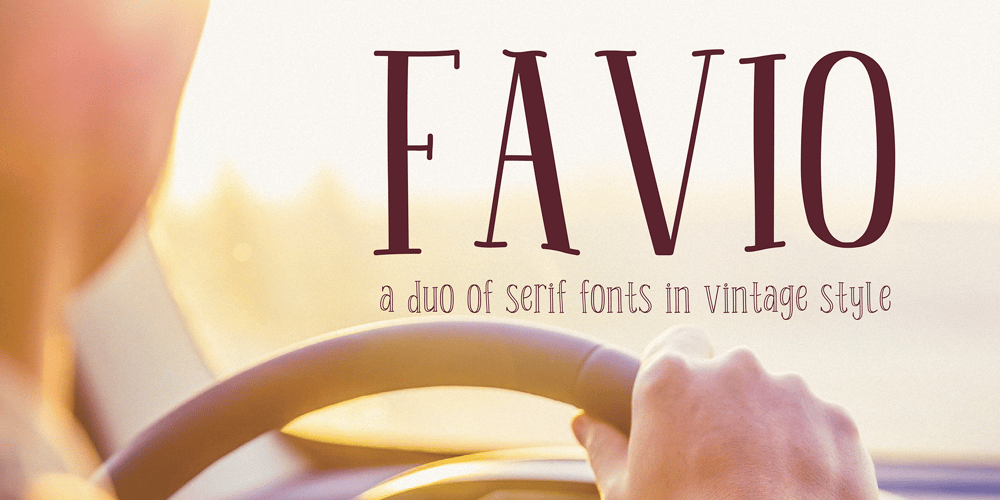
Favio Font Family was designed by Anastasia Kuznetsova and published by Anastasia Kuznetsova. Favio contains 2 styles and family package options. I present to you an elegant, playful and very harmonious duo of serif fonts “Favio”, inspired by ancient printed texts. It looks great on its own as part of a minimalist design. Play with letters to get different effects. The font “Favio” is guaranteed to give your text an individual and very attractive look.Great for branding, wedding invitations, packaging, quotes and labels. And it is also a bold choice of typography for the design of logos, album covers, illustrations, children’s books, posters and much more.Font Features:- A-Z; a-z character set;- 1 language (English);- numbers and punctuation marks, symbols.Fonts can be opened and used in any software that can read standard fonts, even in MS Word. No special software is required to get started.It is recommended to use it in Adobe Illustrator or Adobe Photoshop.Made with love and magic ♡Thank you for reading it, and do not hesitate to send me a message if you have any questions!~ Anastasia